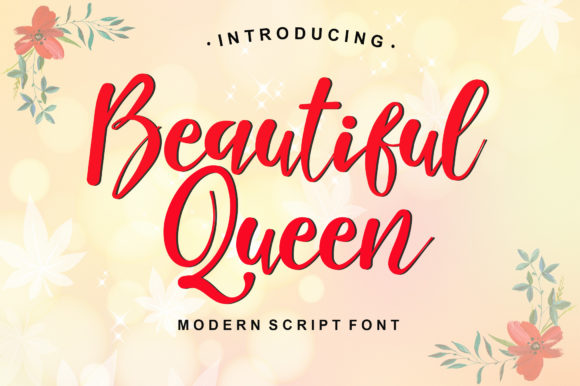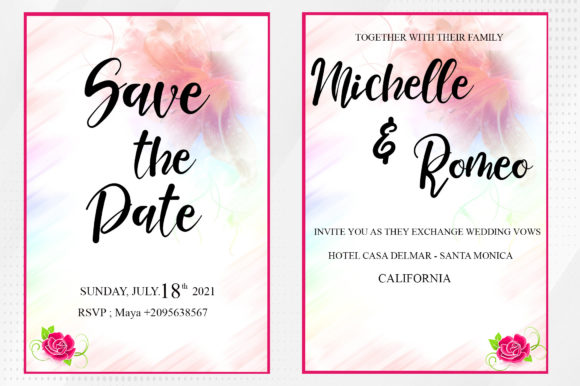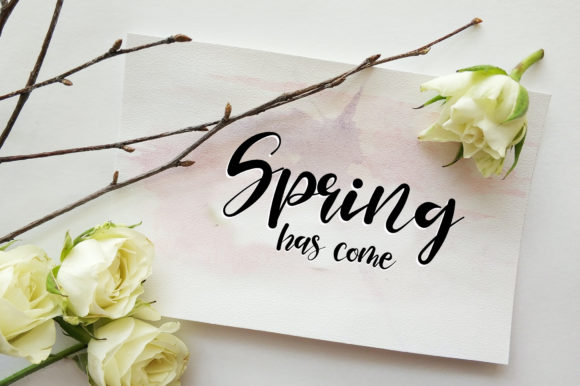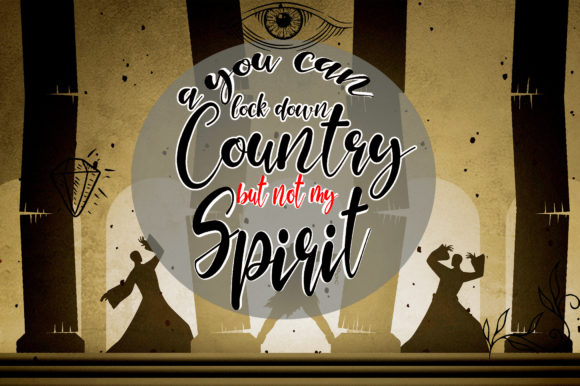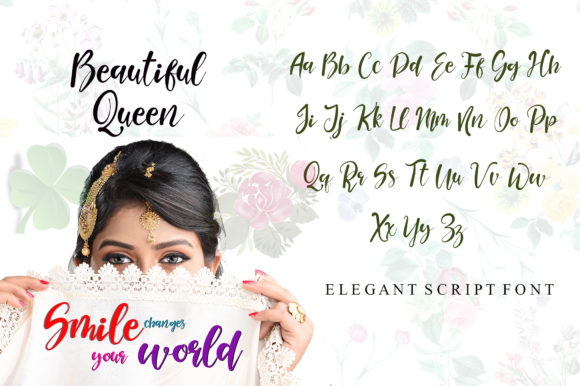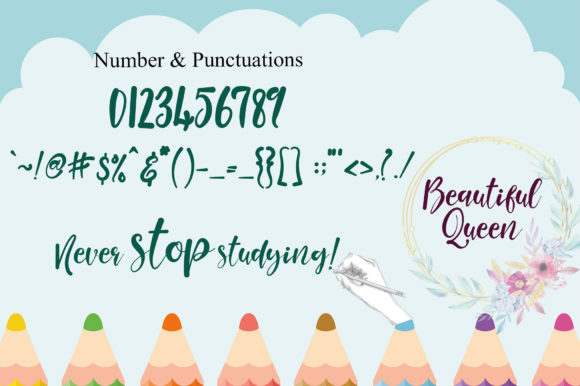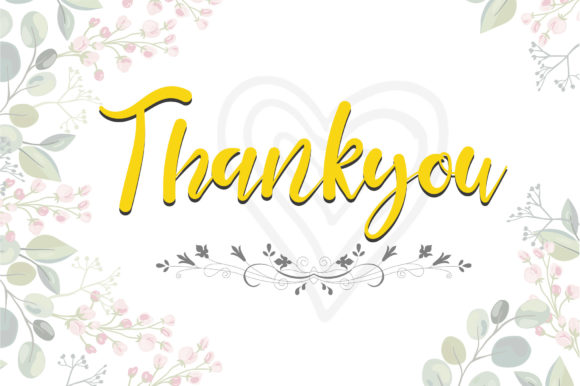
Beautiful Queen Font
Beautiful Queen is an elegant script font with a contemporary atmosphere and impeccable form, inspired by timeless classic calligraphy. Not too thin and not too thick, balanced and varied, this font was designed to enhance the beauty of your projects.